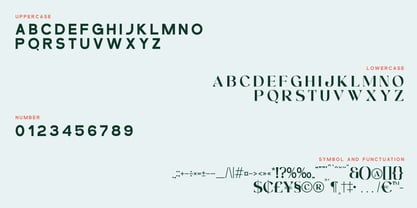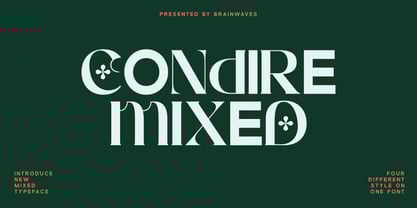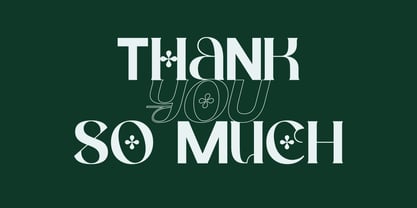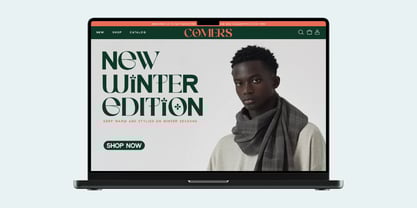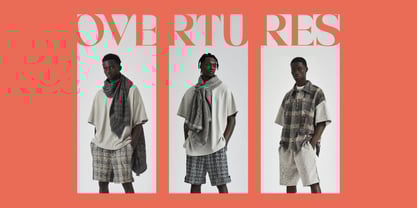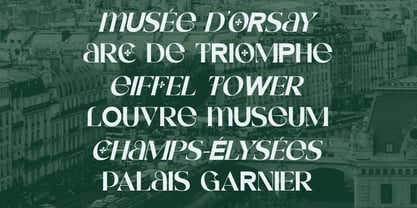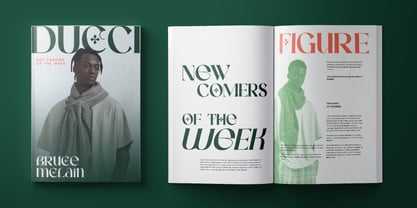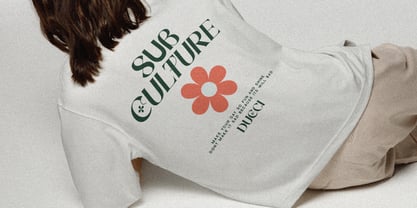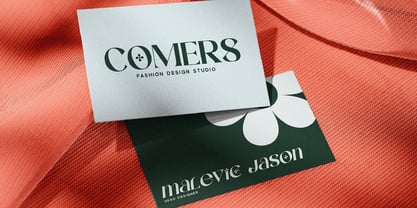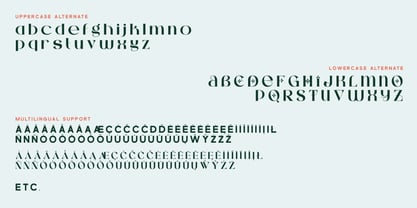
Condire Mixed
by Brainwaves Studio
The Condire Mixed Font Family was designed by Lucky Fitriadi and published by Brainwaves Studio. Condire Mixed contains 2 styles and family package options.
Condire Mixed is a special mixed font, combining the sleekness of sans serif with the refined charm of a modern serif. This unique blend is further elevated by decorative serif alternates featuring subtle ornamental details, making this font truly elegant, unique, and luxurious. Whether you're crafting high-end branding, editorial layouts, or statement typography, Condire MIixed delivers a bold yet graceful touch to your work.